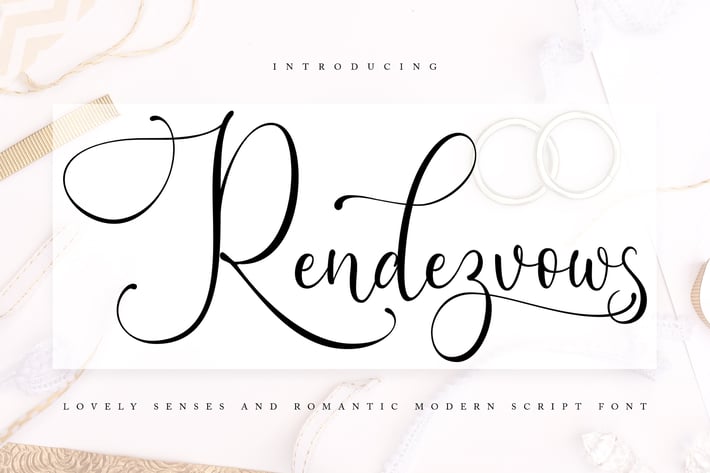
Rendezvouws | Modern Script Font
Rendezvouws | Modern Script Font with a calligraphy style, So beautiful on invitation like greeting cards, branding materials, business cards, quotes, posters, and more!